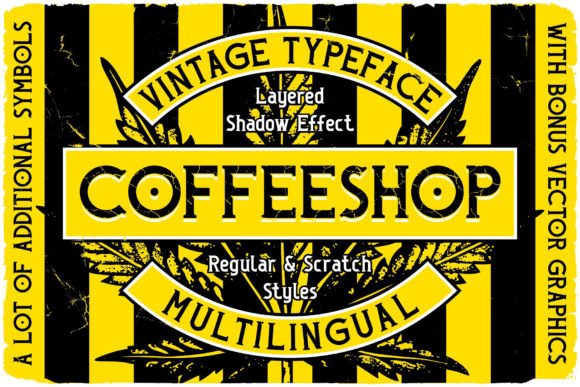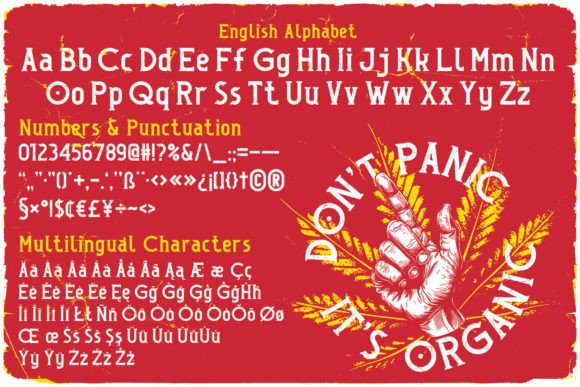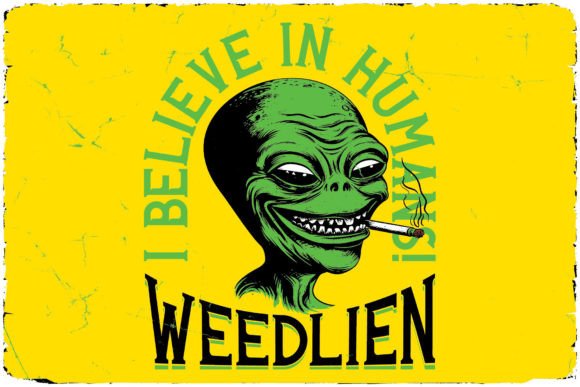
Coffeeshop Font: Rustic Vintage Typography for Retro Branding & Design
About the Coffeeshop Font
The Coffeeshop Font is here to transform your projects with its distinctive character and style. Coffeeshop is a nostalgic vintage label font that brings a rustic touch to your designs. With a classic appeal, this font captures the essence of cozy coffee shops and old-world charm. Perfect for creating retro labels, signage, or any project that craves a hint of timeless character. Coffeeshop’s simplicity and vintage flair make it an excellent choice for adding a touch of warmth and authenticity to your creative endeavors.
Coffeeshop excels in headline use, short text blocks on packaging, and vintage-style posters. Its charm works well for branding projects evoking nostalgia, artisanal products, or coffee shops themselves. Avoid using it for body text or long-form content; its character is best suited for impactful short bursts of messaging.
The font’s personality is warm and friendly, with a touch of rustic elegance. To complement this, pair Coffeeshop with a clean sans-serif like Montserrat for a modern contrast, or a script font like Great Vibes for a more romantic feel. A geometric sans-serif could also provide a pleasing juxtaposition, offering structure against the font’s organic forms.
For a more vintage-inspired aesthetic, consider pairing it with a serif like Playfair Display, emphasizing the old-world charm. These pairings balance the vintage feel of Coffeeshop with contemporary readability where needed.
Coffeeshop Font Usage Examples
Coffeeshop Font Example